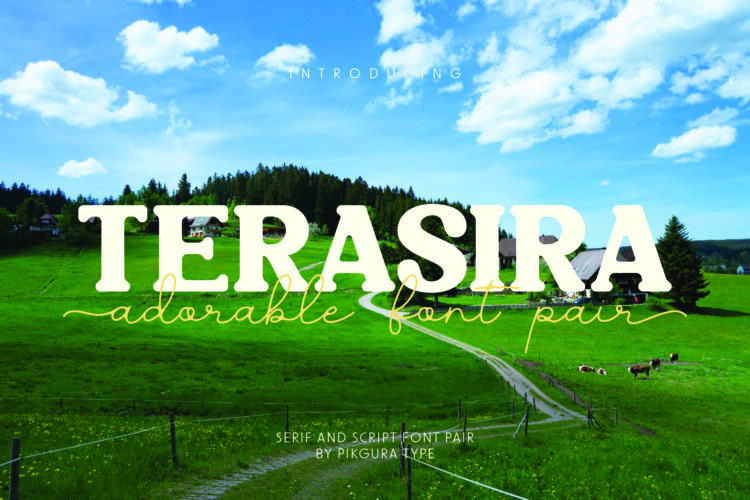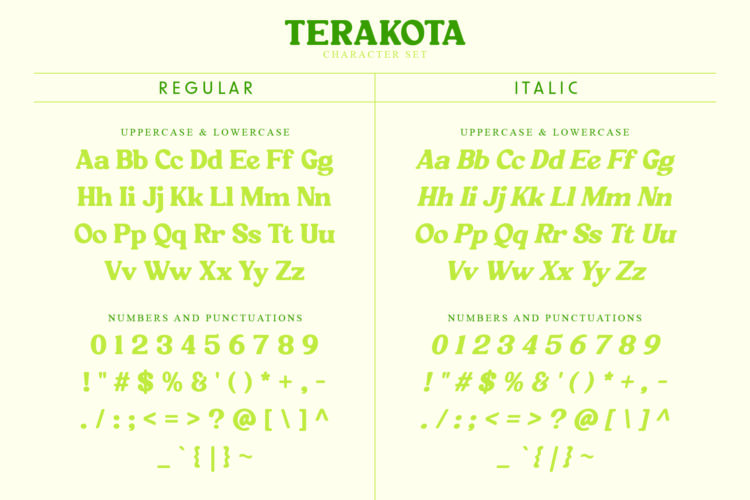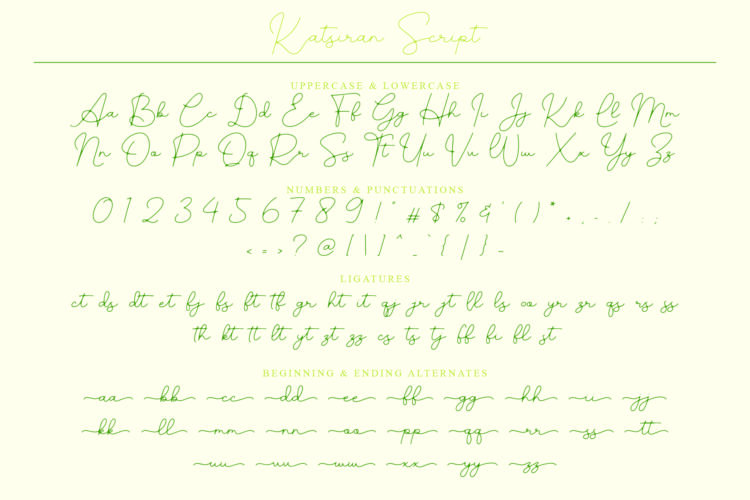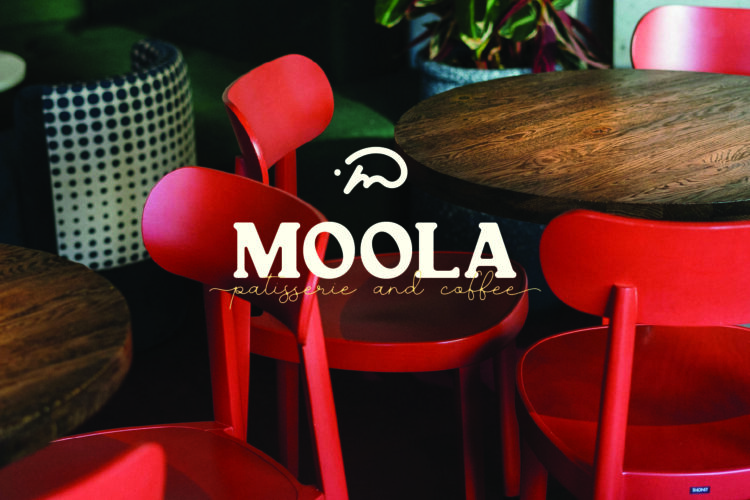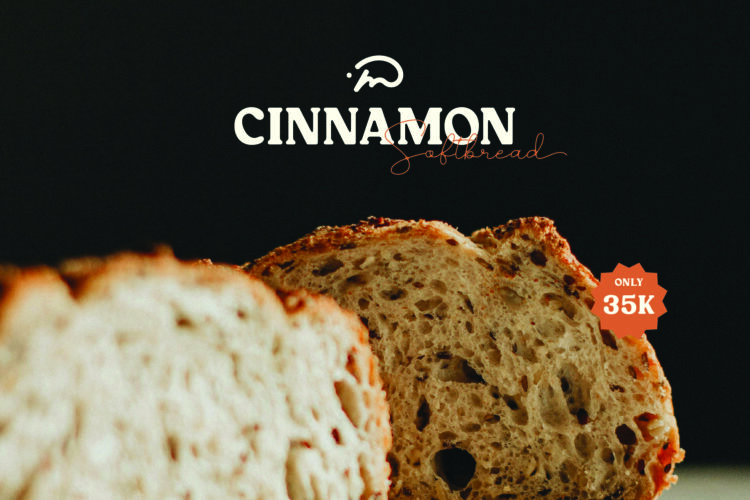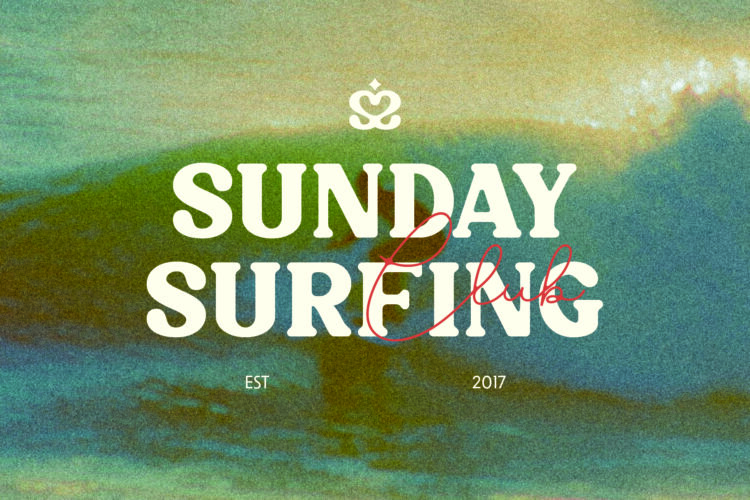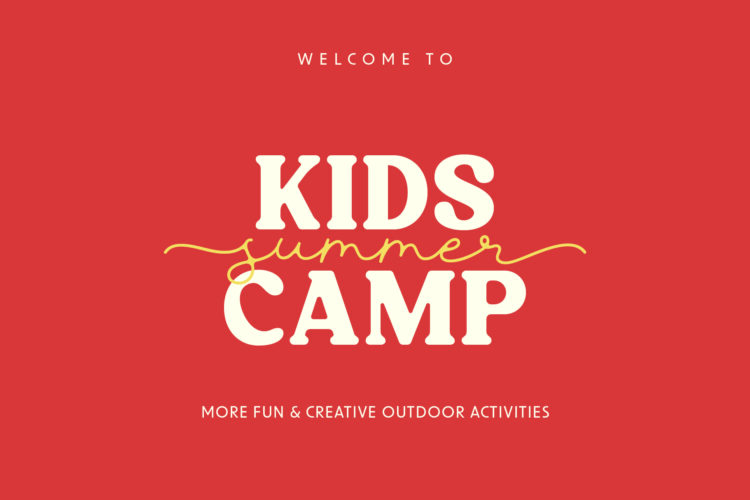
Terakota - Regular
Terakota - Italic
Katsiran
Terasira is not a quiet font pair.
It’s playful, bold, and full of character. This duo mixes a chunky rounded serif with a fun handwritten script to create designs that feel cute, loud, and impossible to ignore.
✨ Terakota brings the confidence.
A bold serif with rounded edges that feels friendly, thick, and strong. It includes a full alphabet, numbers, basic symbols, and a matching italic. Perfect for big titles, fun branding, packaging, and designs that want to stand out fast.
✨ Katsiran brings the fun.
A playful monoline handwritten script with smooth strokes and natural flow. It includes a full alphabet, numbers, basic symbols, and ligatures. Katsiran adds movement, warmth, and personality to logos, quotes, social posts, and creative details.
Together, Terasira feels cute but confident. Playful but bold. Fun without being messy.
Use it when your design needs energy, charm, and a little attitude.
Terasira | Font Pair